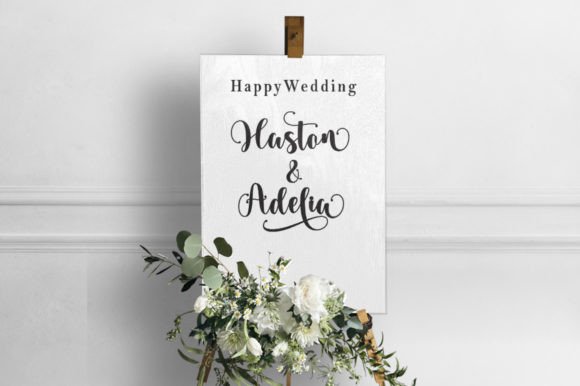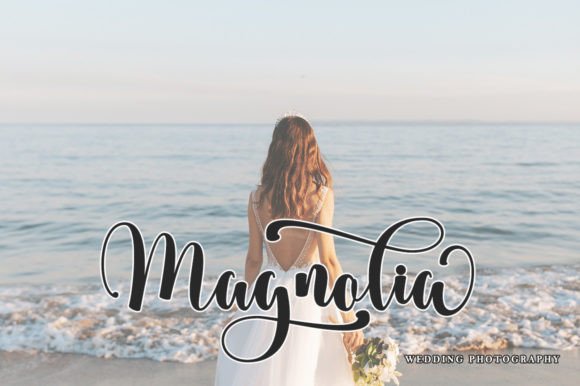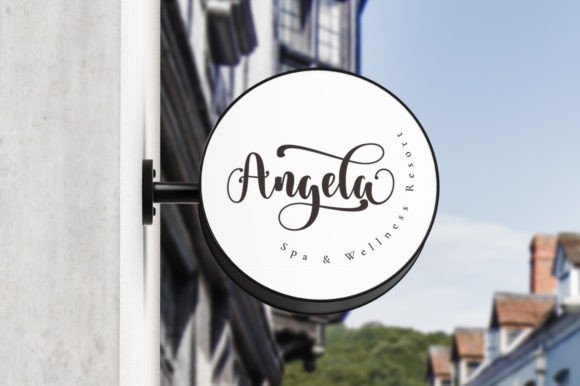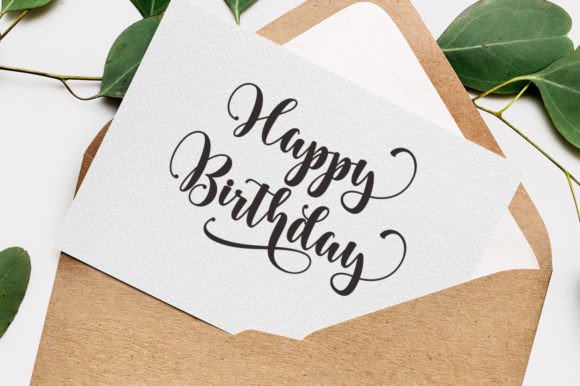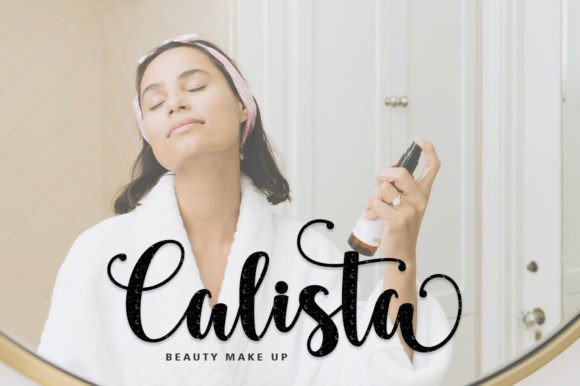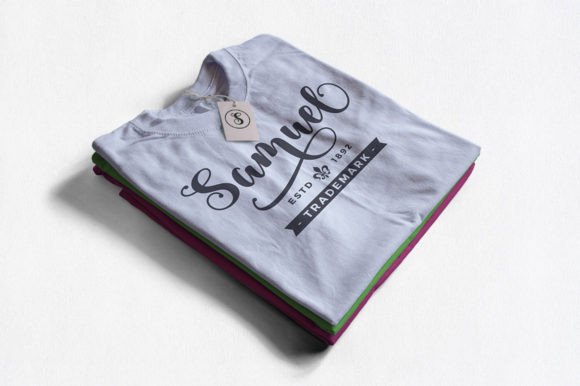
The Perfect Touch of Whimsy: Unlocking the Magic of Baby Leni Font
Have you ever stared at a blank page, pencil in hand, and felt an overwhelming urge to create something beautiful and unique? For designers, this feeling is a familiar spark that ignites the creative process. It’s the moment when a well-crafted font can make all the difference in bringing a design to life.
Enter Baby Leni Font, a stunning script font that’s as versatile as it is beautiful. With its numerous alternative styles, Baby Leni Font is the perfect tool for designers looking to add a touch of whimsy to their projects. Whether it’s an invitation, product packaging, or logo, this font is sure to elevate your design game and leave a lasting impression on your audience.
What sets Baby Leni Font apart is its ability to seamlessly adapt to a wide range of design needs, making it a valuable addition to any designer’s toolkit. With Baby Leni Font, you’ll have the freedom to create stunning, one-of-a-kind designs that are sure to captivate and inspire.
Baby Leni Font Key Features
- Font Style: Script, Handwritten
- Unique Characteristics: Delicate, elegant, and cursive design; perfect for baby-related projects, invitations, and stationery
Baby Leni Font Review
Overall, I think the Baby Leni Font is a cute and playful option for children’s content. ✨ The font’s rounded edges and whimsical feel immediately evoke a sense of friendliness and approachability. It’s perfect for designing illustrations, book covers, or even social media graphics for kids.
- ✨ The font’s versatility in being both fun and elegant at the same time.
- ✨ The rounded edges give it a unique and modern feel.
- ✨ It’s highly legible, making it perfect for body text or headings.
- ⚠️ The font may be too playful for more serious or formal content.
- ⚠️ It’s not ideal for large blocks of text due to its rounded edges making it harder to read.
Overall, I think the Baby Leni Font is a great option for designers working on children’s content. It’s a fun and engaging font that can help bring a project to life. However, it’s essential to consider the context and purpose of the project before choosing this font.
The Baby Leni Font is ideal for:
- Designing children’s products (e.g., toys, clothes, etc.)
- Creating invitations for baby showers or children’s parties
- Designing educational materials for young children
Alternative Fonts to Baby Leni Font
Baby Leni Font is a popular, elegant script font used for various design purposes. However, it’s always good to explore alternative options to add some uniqueness to your designs. Here are a few alternatives to consider:
Pacifico Font is a beautiful, elegant script font that works well for headings, titles, and quotes. It has a more refined and sophisticated look compared to Baby Leni Font, making it suitable for high-end designs. Pacifico Font is ideal for use in wedding invitations, luxury branding, and fine art projects.
Great Vibes Font is a modern, cursive script font that adds a touch of sophistication and elegance to any design. It has a more flowing and organic look compared to Baby Leni Font, making it suitable for use in creative projects, such as wedding invitations, greeting cards, and advertisements.
Carolyna Pro Font is a high-end, elegant script font that is perfect for luxury branding, fine art projects, and high-end designs. It has a more refined and sophisticated look compared to Baby Leni Font, making it suitable for use in wedding invitations, luxury packaging, and high-end advertising.